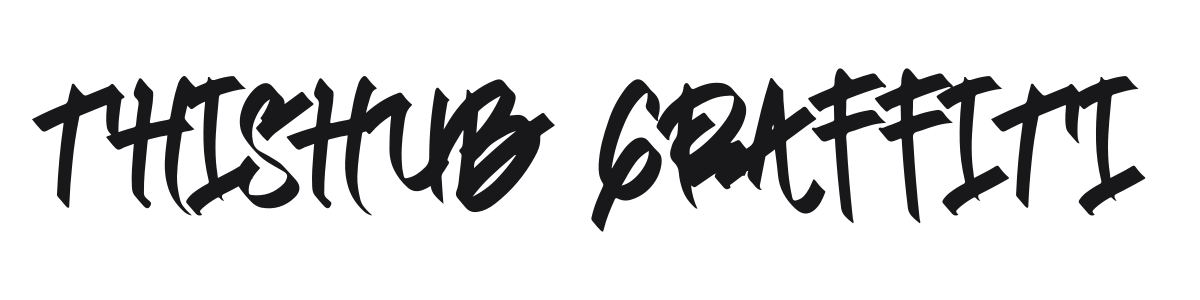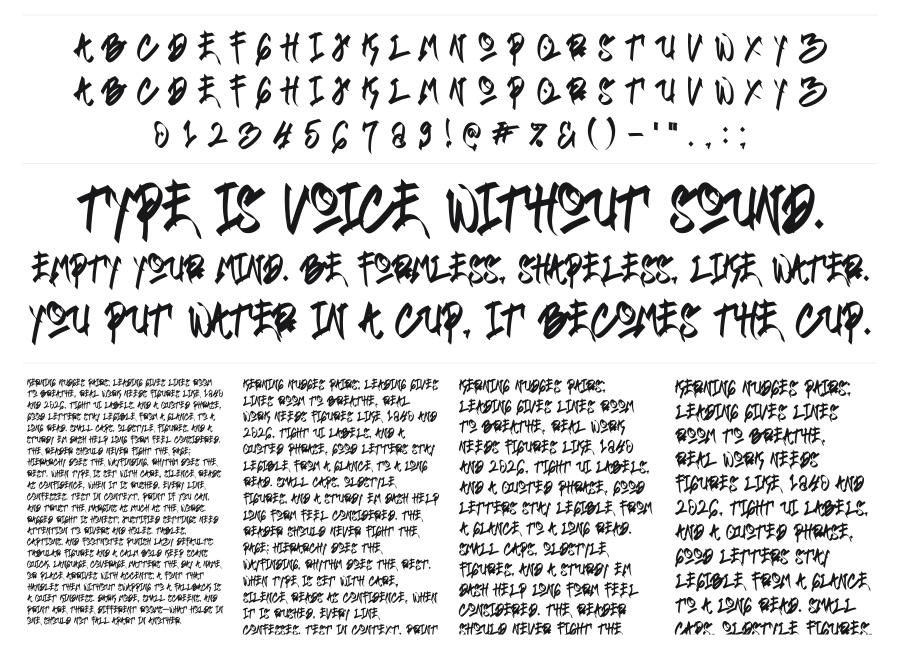
Thishub Graffiti
Thishub Graffiti is a bold, street-art-inspired script by Sipanji that channels the raw energy of spray-painted graffiti lettering. Characters are heavy and angular with dramatic stroke variation, jagged terminals, and the kind of restless energy that makes it hard to ignore at large sizes. Best used where attitude is the whole point.